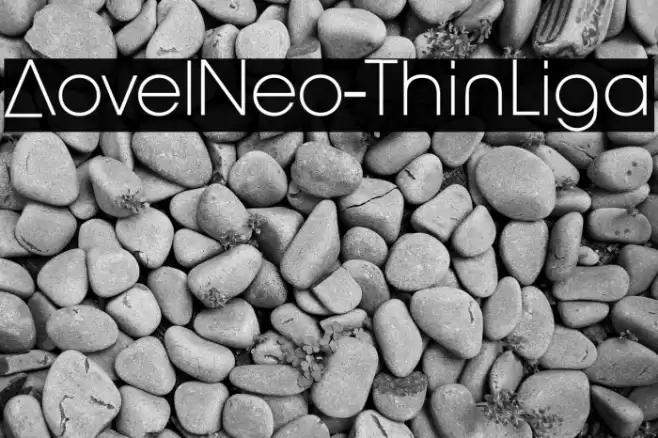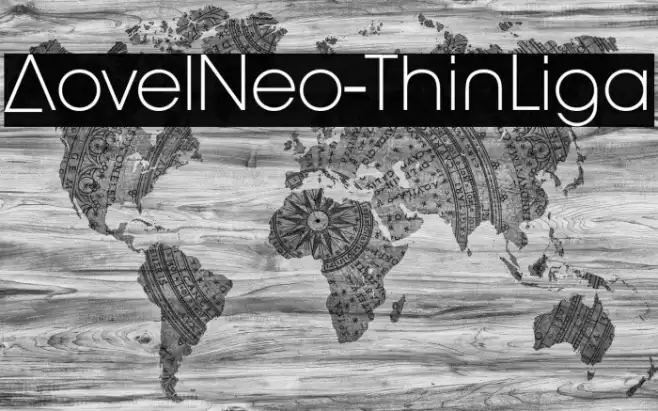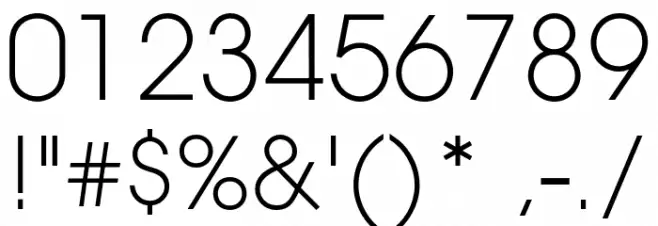
AovelNeo-ThinLiga Font
AovelNeo-ThinLiga Description
This font features a clean and minimalist design with thin, uniform strokes that give it a modern and elegant appearance. The characters are well-proportioned, with a geometric influence that is evident in the circular shapes of the letters like 'O' and 'C'. The uppercase letters maintain a consistent height, while the lowercase letters are slightly shorter, providing a balanced look. The numerals are clear and easy to read, matching the overall aesthetic of the alphabet. Special characters are included, maintaining the same thin and sleek style. This font is ideal for creating a sophisticated and contemporary look in various design projects.
A modern, thin, and geometric font with a clean and elegant style from Uncategorized fonts.
- Proposed Projects: Ideal for branding, editorial design, web design, and advertising materials that require a sleek and modern touch.